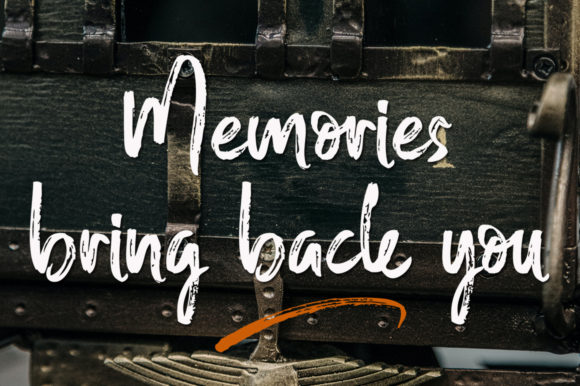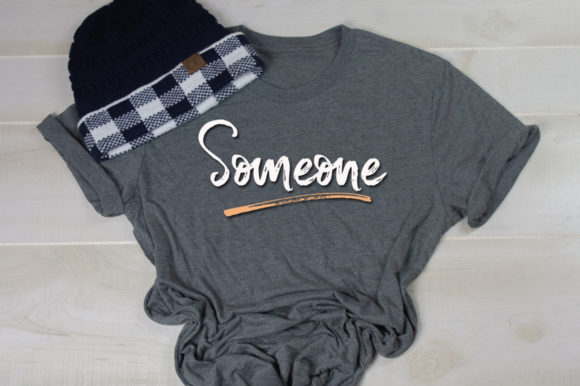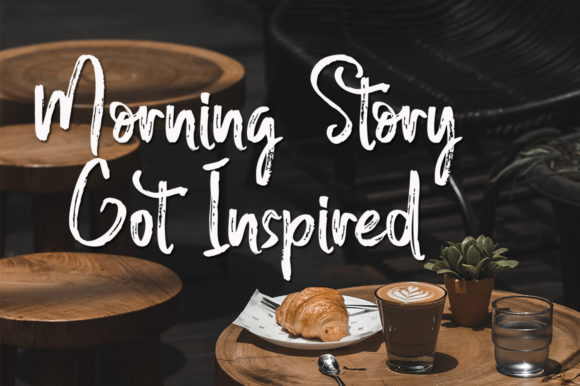
Introduction to Mordibella Font
As designers, we’ve all been there – staring at a blank page, trying to come up with the perfect font to bring our creative project to life. But what if that perfect font was hiding in plain sight, waiting to be discovered? Enter Mordibella Font, a stunning modern brush font that’s about to revolutionize the way you approach your next design project.
With its incredibly high quality and versatility, Mordibella Font is the ultimate design resource for any creative endeavor. Whether you’re working on branding, product packaging, or even a simple t-shirt design, this font is sure to add a touch of elegance and sophistication to your work. And the best part? It’s available for free download, making it an absolute steal for designers on a budget.
But what really sets Mordibella Font apart is its ability to thrive on a transparent background, allowing your design to truly shine. So why settle for a generic font when you can have a high-quality, one-of-a-kind design resource like Mordibella Font?
Key Features of Mordibella Font
- High-quality typography with unique and creative design elements, making it ideal for various creative projects.
- Unique characteristics include hand-drawn elements and intricate details, adding a touch of elegance to any design project.
- Designed to be versatile, Mordibella Font can be used in a wide range of creative projects, from branding and advertising to editorial and publishing.
Honest Review: Mordibella Font
I recently stumbled upon the Mordibella Font, and I must say it’s been a delightful addition to my design library. As a designer, I’m always on the lookout for high-quality fonts that can elevate my creative projects. The Mordibella Font does just that.
Here are a few things that I particularly like about this font:
- ✨ Its unique, gothic-inspired design makes it perfect for adding a touch of elegance to my designs.
However, I do have a few criticisms:
- ⚠️ The font is not suitable for use in body text, as it can be quite difficult to read.
- ⚠️ It’s also not ideal for use in designs that require a lot of fine detail, as the font’s irregular lines can make it tricky to work with.
Overall, I’m impressed with the Mordibella Font, and I would definitely recommend it to designers looking for a unique, high-quality design resource for their creative projects. Just be sure to use it sparingly and in the right contexts to get the best results.
Introduction to Mordibella Font
Mordibella Font is a high-quality, elegant font that can be used for various creative projects, including graphic design, digital art, and more. Its transparent background makes it easy to overlay on images, creating a beautiful and unique design.
Getting the Most Out of Mordibella Font
To get the most out of Mordibella Font, try experimenting with different font sizes, colors, and combinations. You can also use it to create custom graphics, logos, and typography for your creative project.
Common Use Cases for Mordibella Font
Mordibella Font is ideal for various creative projects, including:
Wedding invitations and stationery
Business cards and logos
Book covers and literary projects
Graphic novels and comics